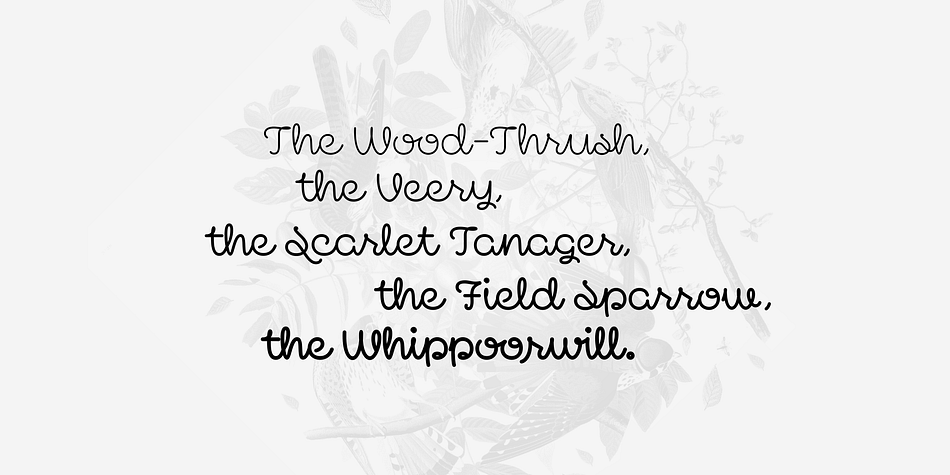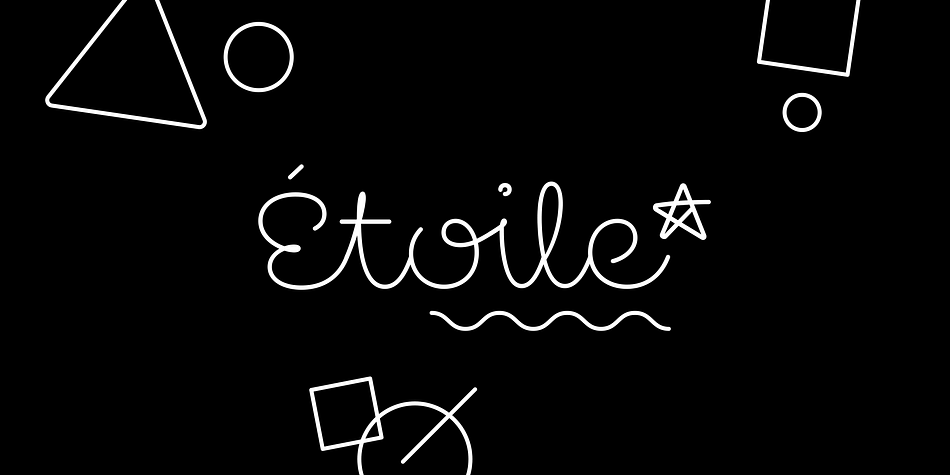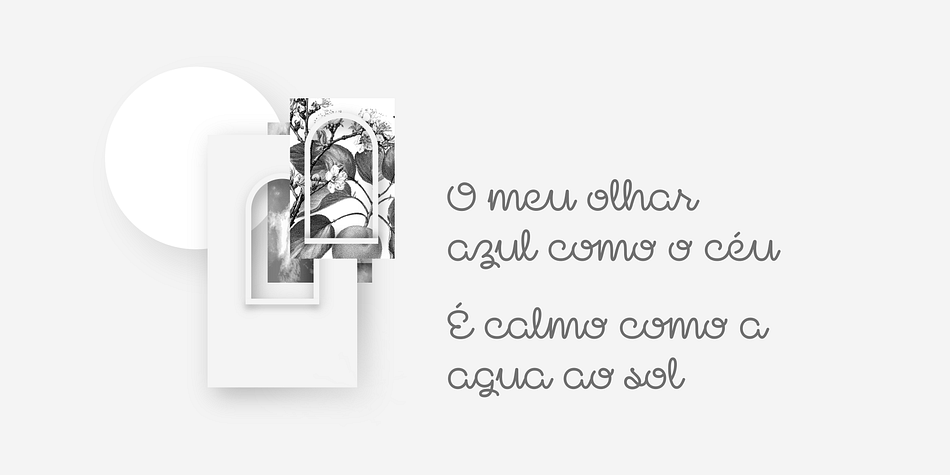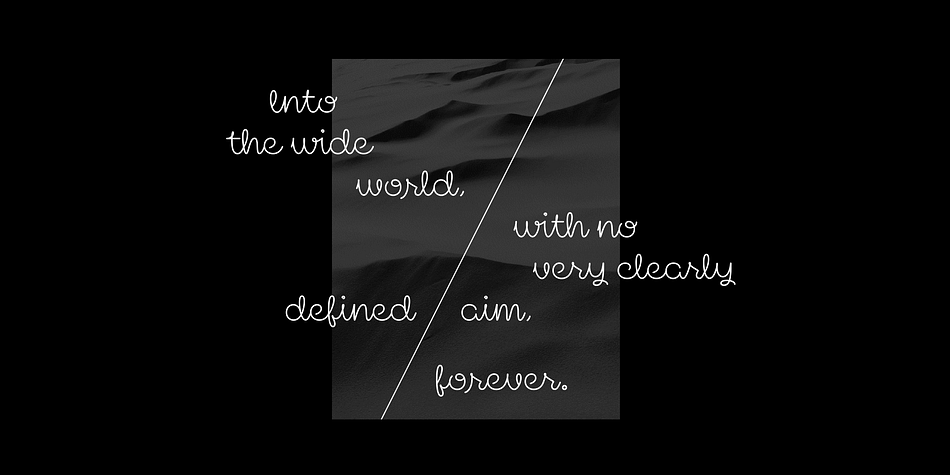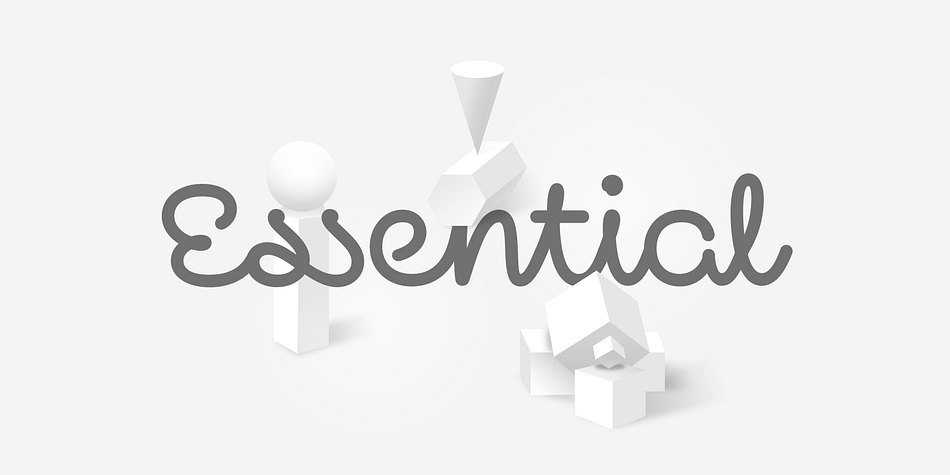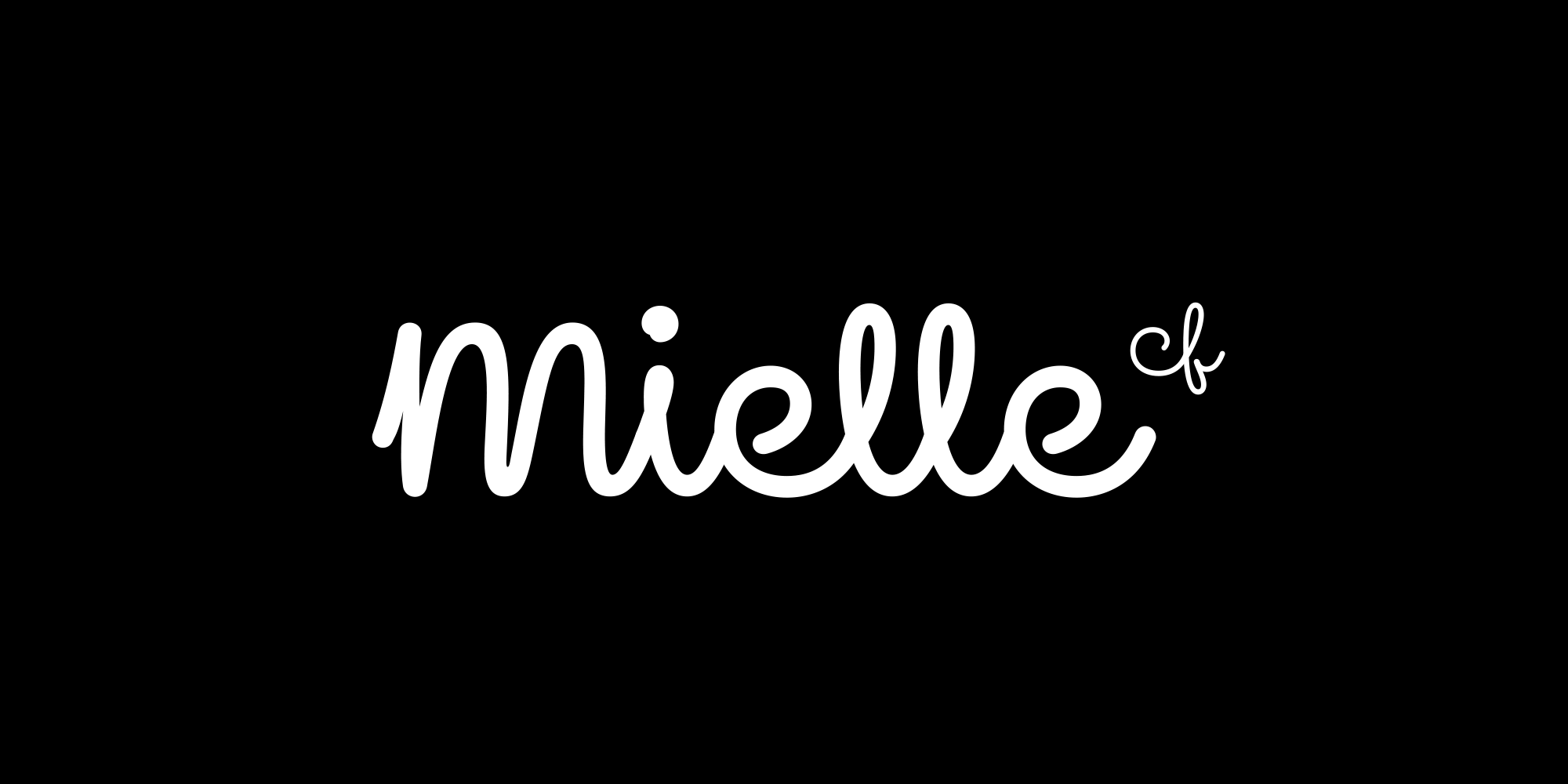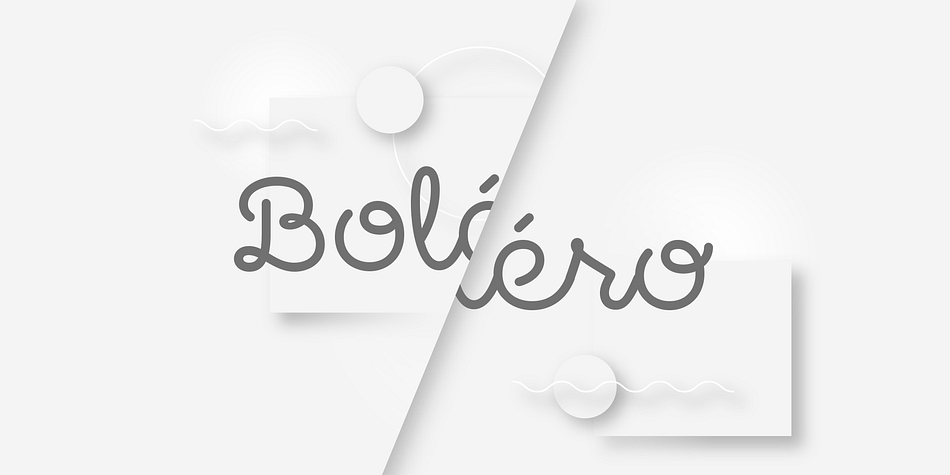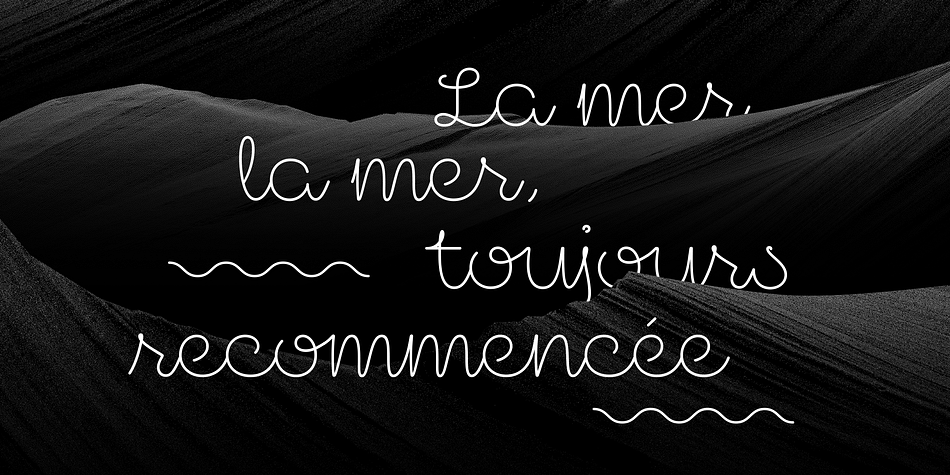
Mielle CF
Designed by Connary Fagen, Mielle CF is a script font family. This typeface has six styles and was published by Connary Fagen Type Design.
Flowing like warm honey, Mielle CF is a playful cursive script perfect for logos, signage, and posters. Automatic ligatures and contextual letters flow across Mielle’s six weights.
Mielle CF pairs well with simple, elegant typefaces that won’t compete for visual attention, such as Artifex CF and Artifex Hand CF.